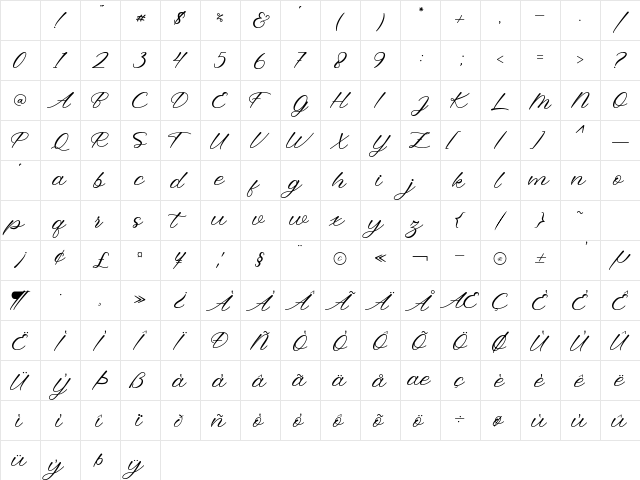
Complete Betty Chamilla (Personal Use) Regular glyph index. Displaying only characters natively supported by Betty Chamilla (Personal Use) Regular font.
Betty Chamilla (Personal Use) is a composed and adaptable typeface that performs quietly and consistently across a wide range of design contexts.